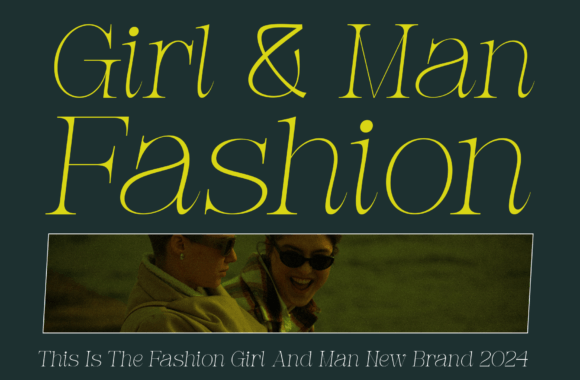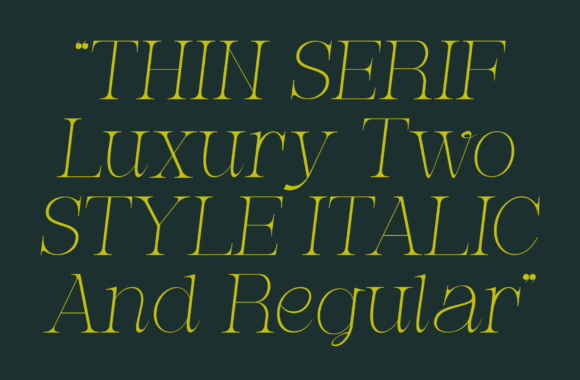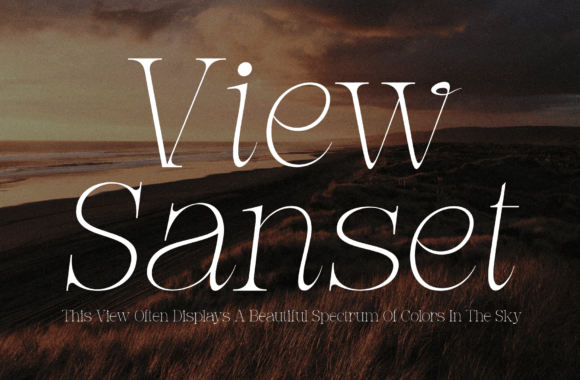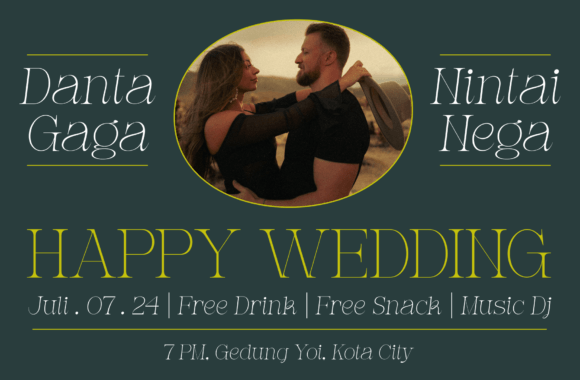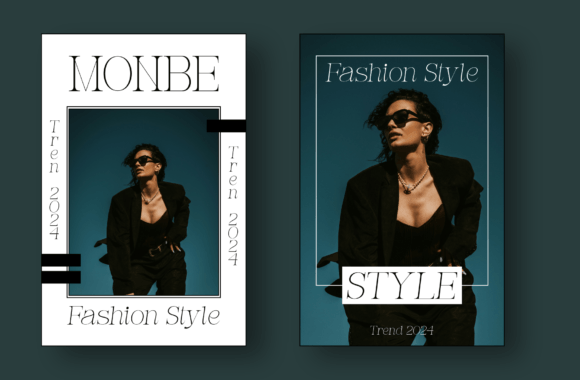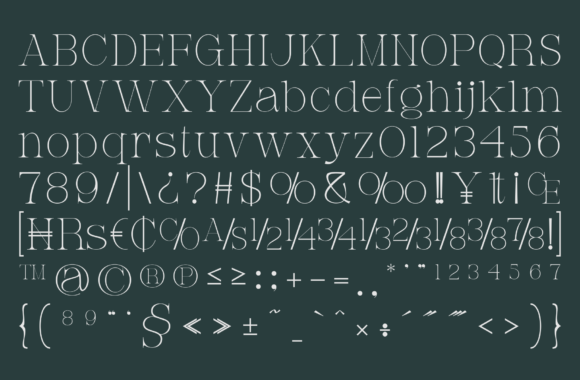
Introduction to Mathe Netha Font
Have you ever found yourself in the midst of a creative project, pouring your heart and soul into a design, only to be held back by the limitations of your font choices? The perfect font can elevate your work from good to great, but finding the right one can be a daunting task. This is where the Mathe Netha Font comes in – a high-quality, luxurious font that will take your designs to the next level.
With its elegant, thin serif design, the Mathe Netha Font is perfect for creating a sophisticated, high-end look that’s sure to impress. Whether you’re working on a promotional material, magazine layout, or any other creative project, this font is a valuable resource that will help you achieve your design goals. And the best part? It’s available for free download, making it an accessible design resource for designers of all levels.
Key Features of Mathe Netha Font
- High-quality design suitable for creative projects, with a unique and modern style.
- Includes a large character set, supporting multiple languages and making it a versatile font for global projects.
- Designed to be highly legible at various resolutions and sizes, from 10pt to 72pt, making it suitable for a range of design applications.
- Part of the Mathe Netha Font family, offering a range of weights and styles to suit different creative needs.
Honest Review: Mathe Netha Font
I recently had the opportunity to try out the Mathe Netha Font, and I must say I was pleasantly surprised. As a designer, I’m always on the lookout for high-quality fonts that can elevate my creative projects.
The Mathe Netha Font delivers on that front. With its clean lines, simple shapes, and unique character, it’s perfect for any project that requires a touch of sophistication. Plus, it’s available as a free download, making it an excellent addition to any design resource collection.
Here are some of the things I like about the Mathe Netha Font:
- ✨ It’s highly customizable, allowing me to adjust the size, color, and style to fit my project’s needs.
- ✨ It’s a great choice for digital projects, as it’s highly legible and easy to read.
However, I do have a few minor complaints:
- ⚠️ The font may not be suitable for projects that require a lot of bold, eye-catching typography.
- ⚠️ The font is not as versatile as some other fonts on the market, and may not work well in certain design contexts.
Overall, I’m impressed with the Mathe Netha Font. It’s a solid choice for any designer looking for a high-quality, free font that can add some visual interest to their projects.
Introduction to Mathe Netha Font
The Mathe Netha Font is a high-quality design resource, perfect for creative projects that require a unique and eye-catching look. With its transparent background and clean lines, this font is ideal for graphic designers, artists, and anyone looking to add a touch of elegance to their work.
Tips for Getting the Most Out of Mathe Netha Font
To get the most out of the Mathe Netha Font, experiment with different font sizes and styles to create a unique look. You can also combine the font with other design elements, such as images and graphics, to add depth and interest to your design.
Common Use Cases for Mathe Netha Font
The Mathe Netha Font is ideal for a variety of creative projects, including logo design, branding, and graphic design. It’s also perfect for creating invitations, flyers, and other promotional materials that require a touch of sophistication and elegance.